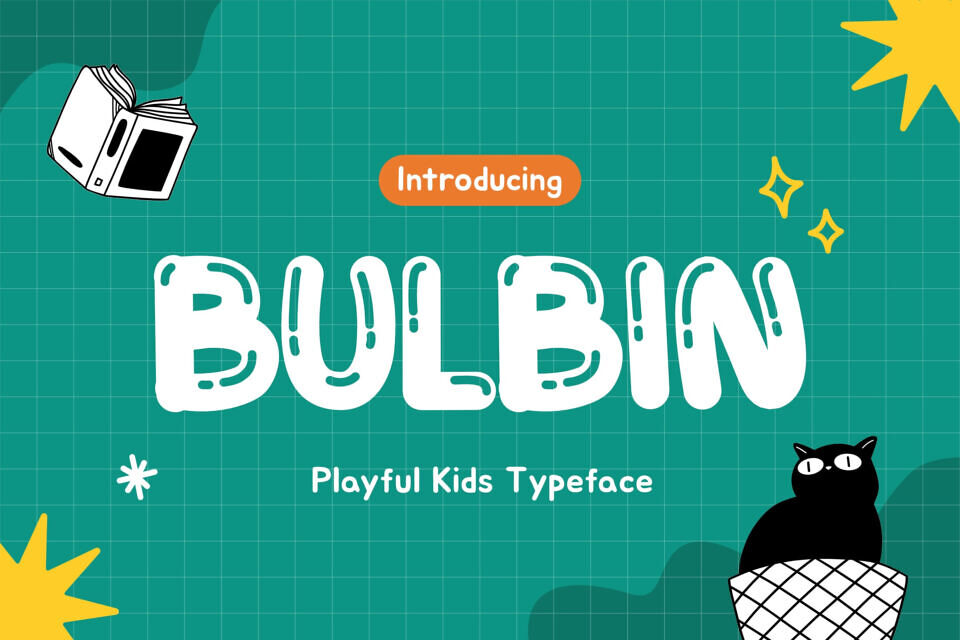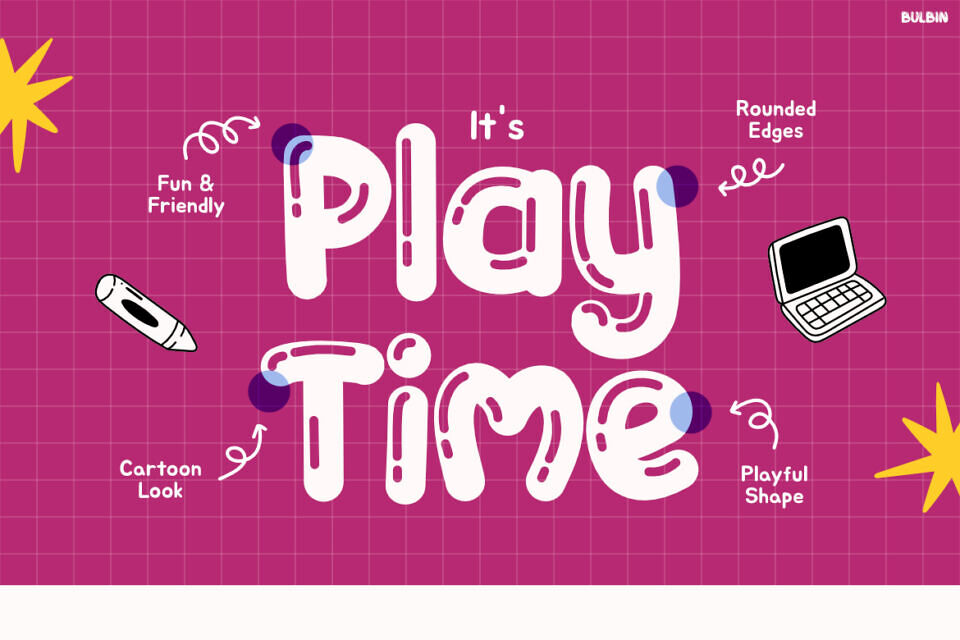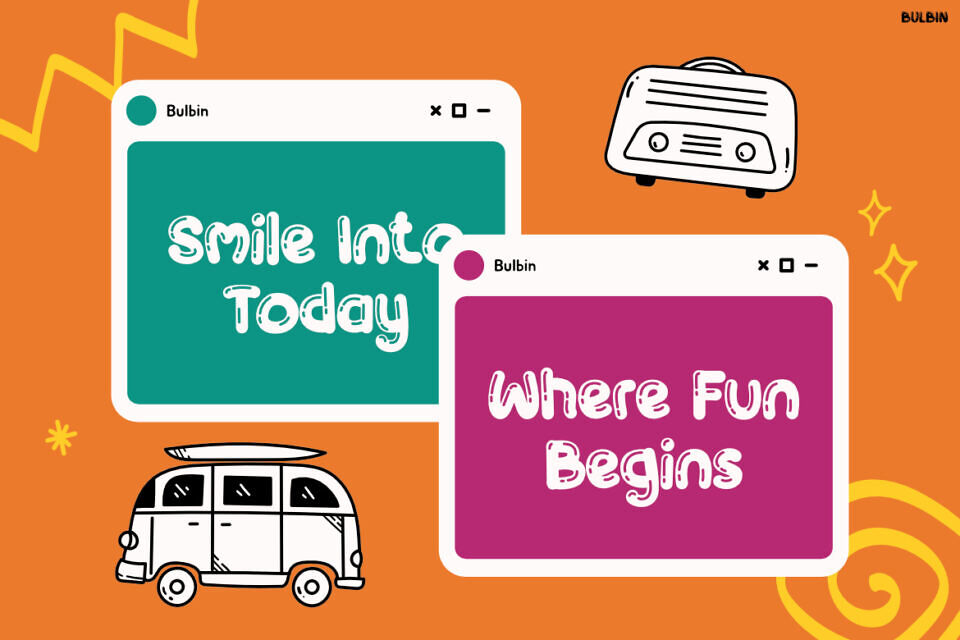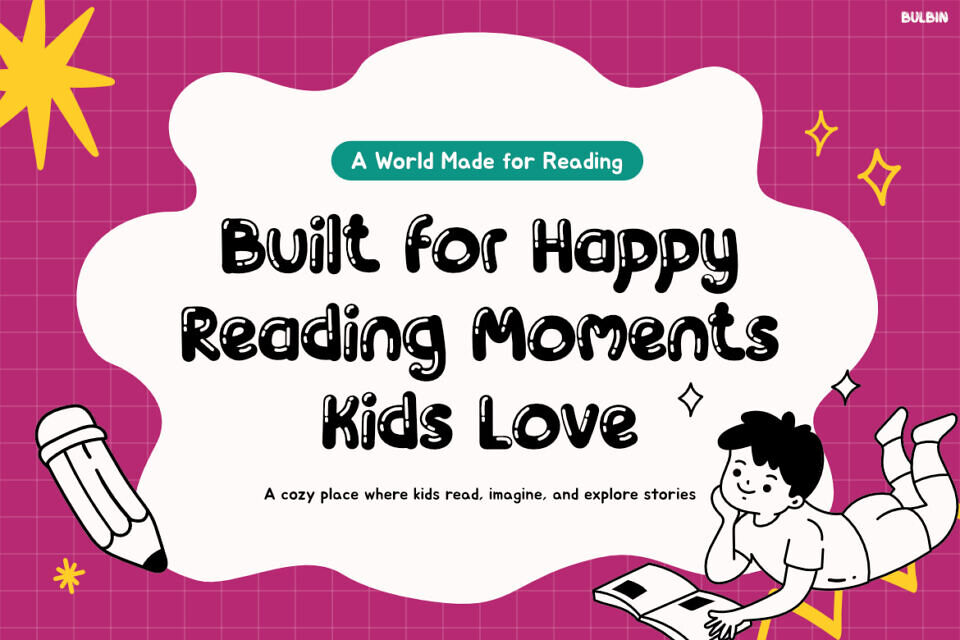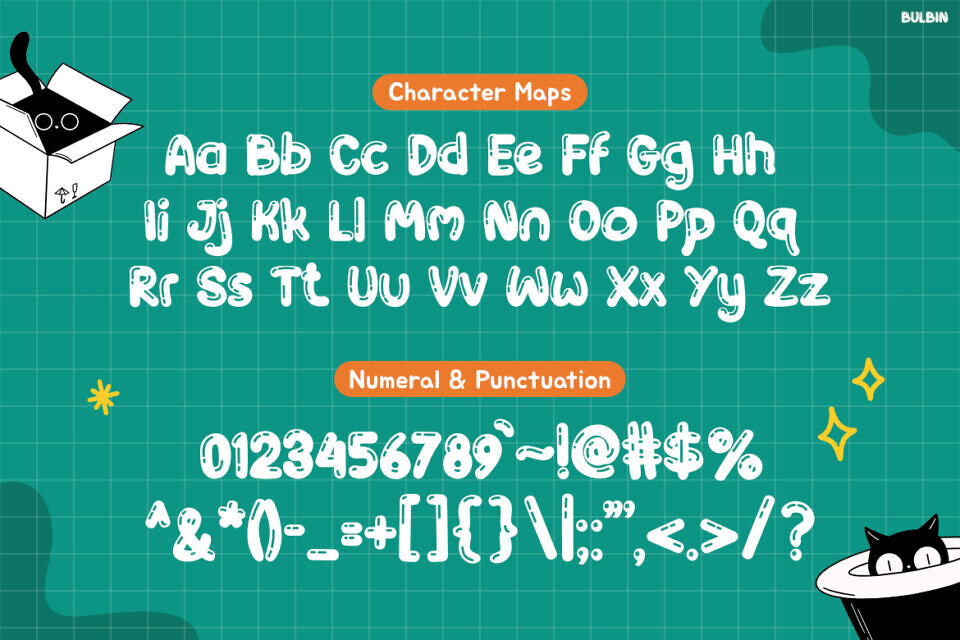
Bulbin is a cheerful and playful kids typeface designed to turn every word into a fun experience. From the very first glance, this font feels friendly, warm, and full of joy. Its rounded shapes, chunky strokes, and lively details create a welcoming look that instantly attracts children’s attention.
Bulbin stands out because it balances cuteness with clarity. Each letter feels hand-crafted yet remains easy to read, making it perfect for both playful designs and educational content. Moreover, the font’s consistent rhythm helps young readers recognize letters faster, while the joyful aesthetic keeps them engaged longer.